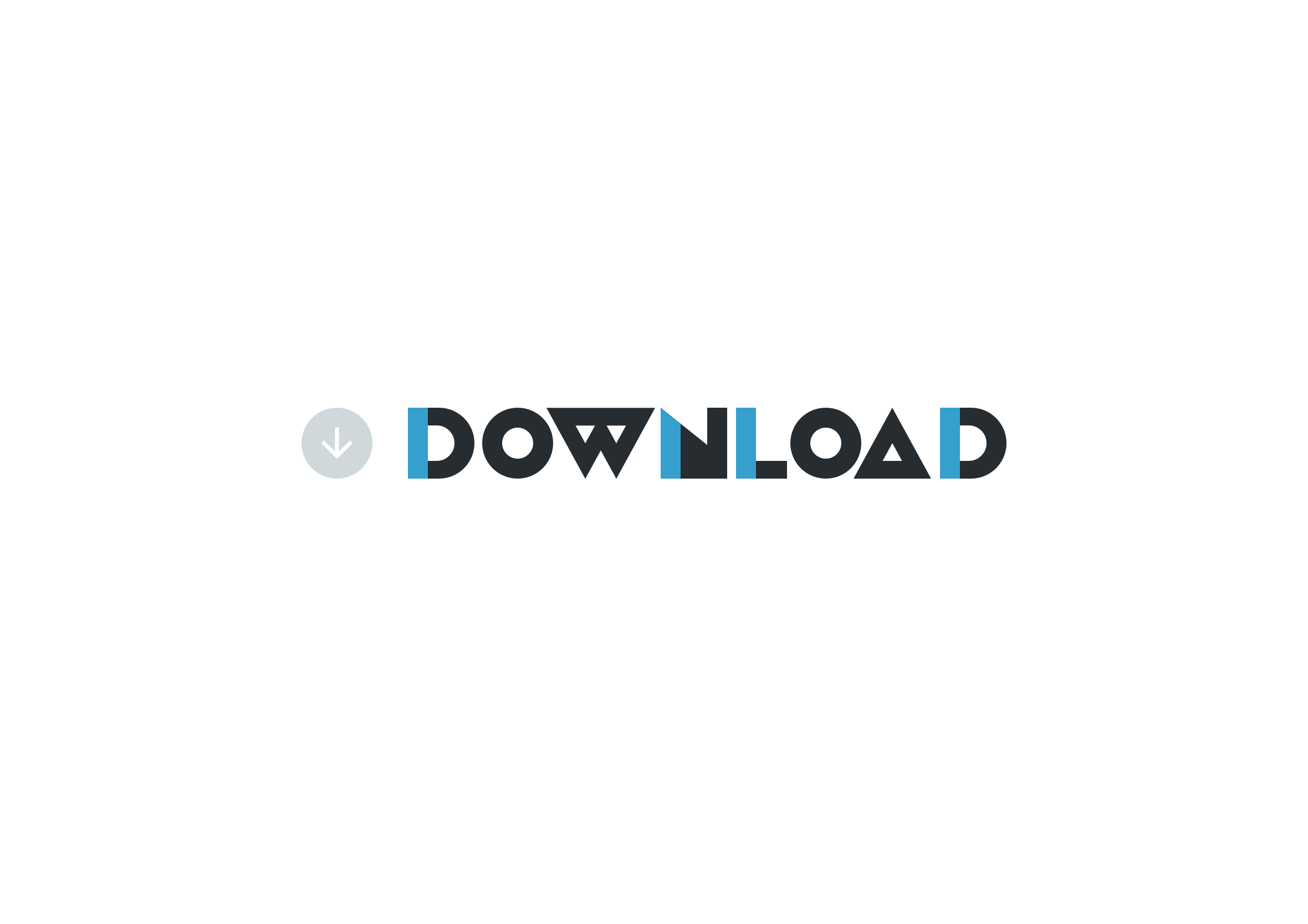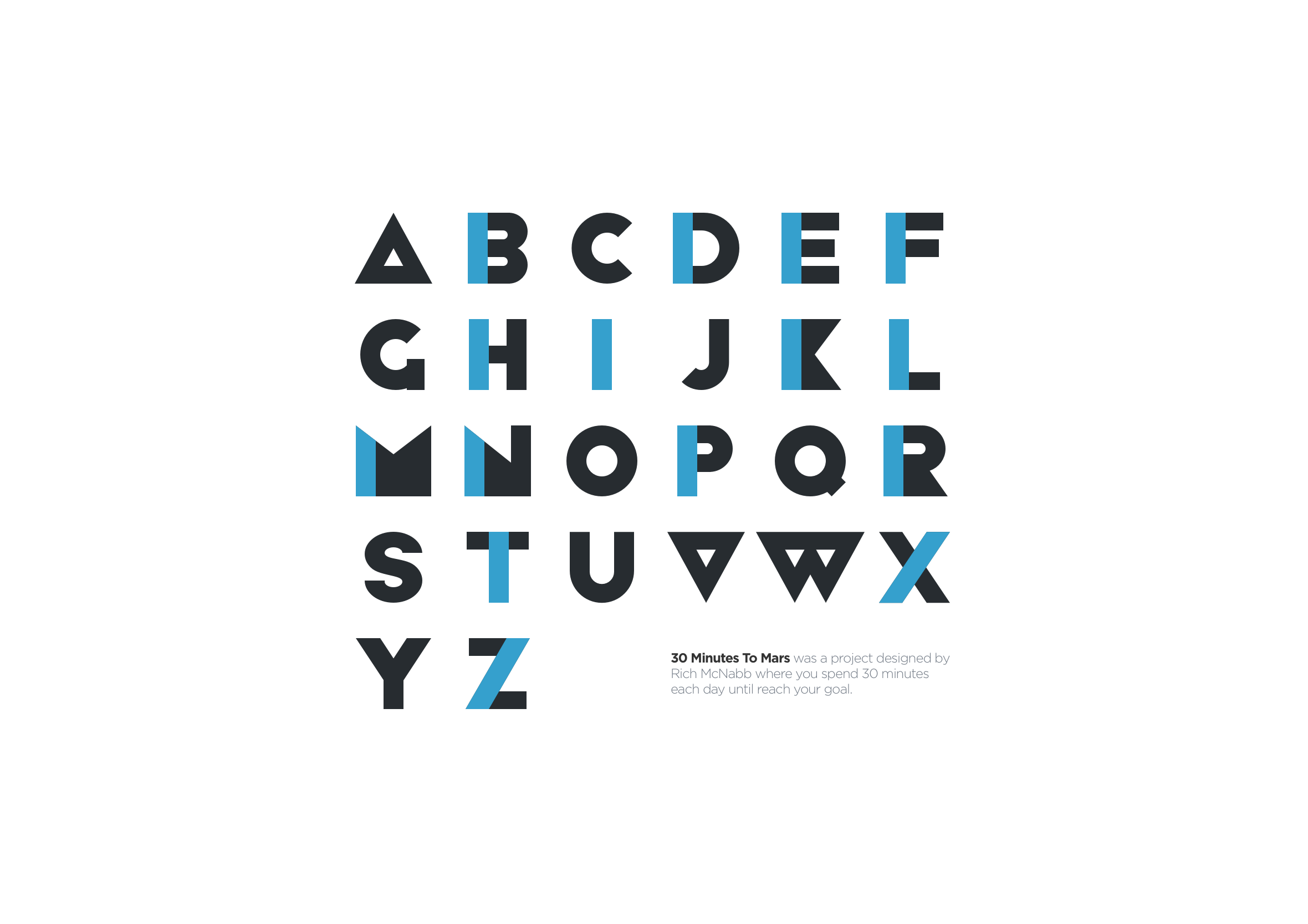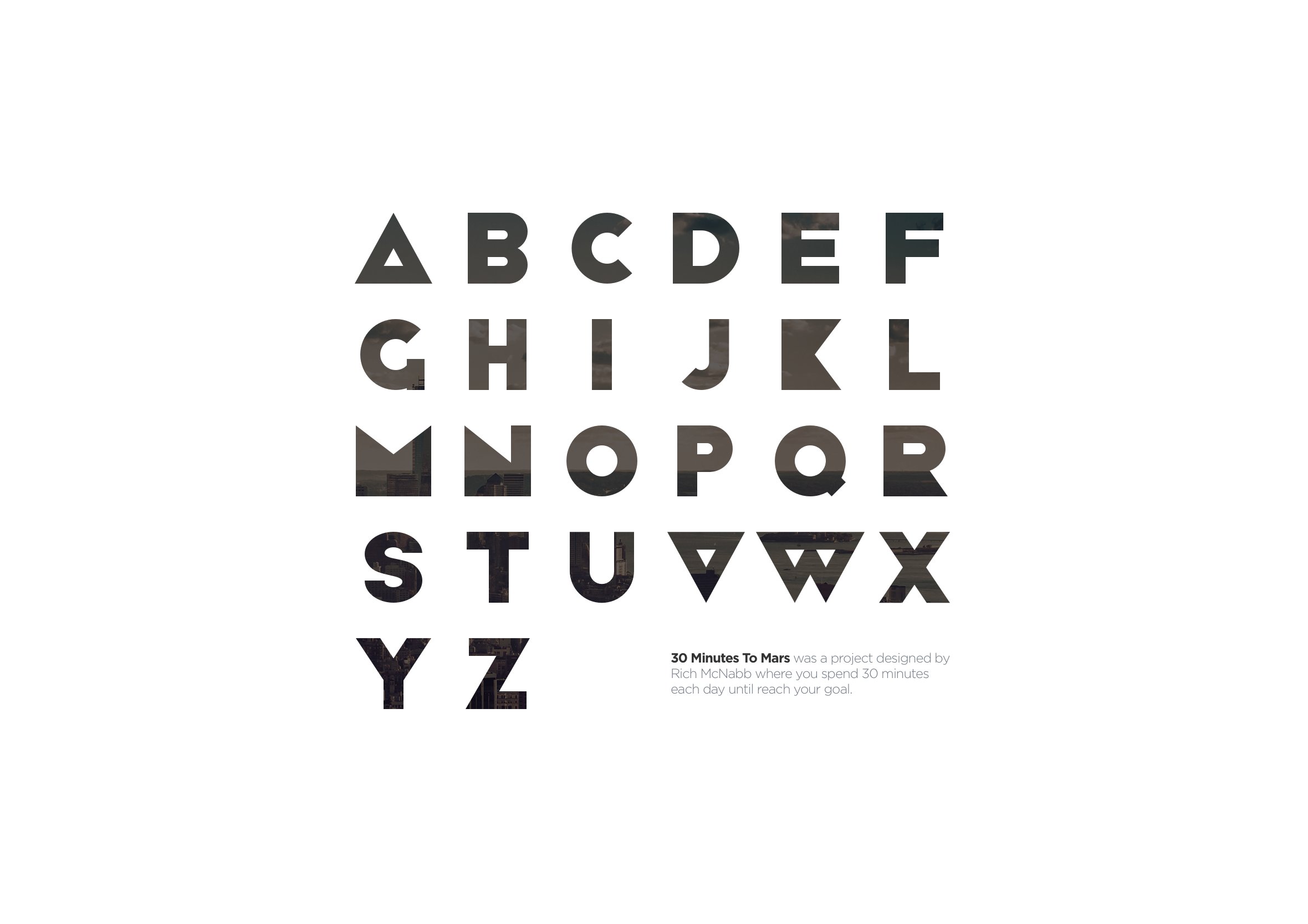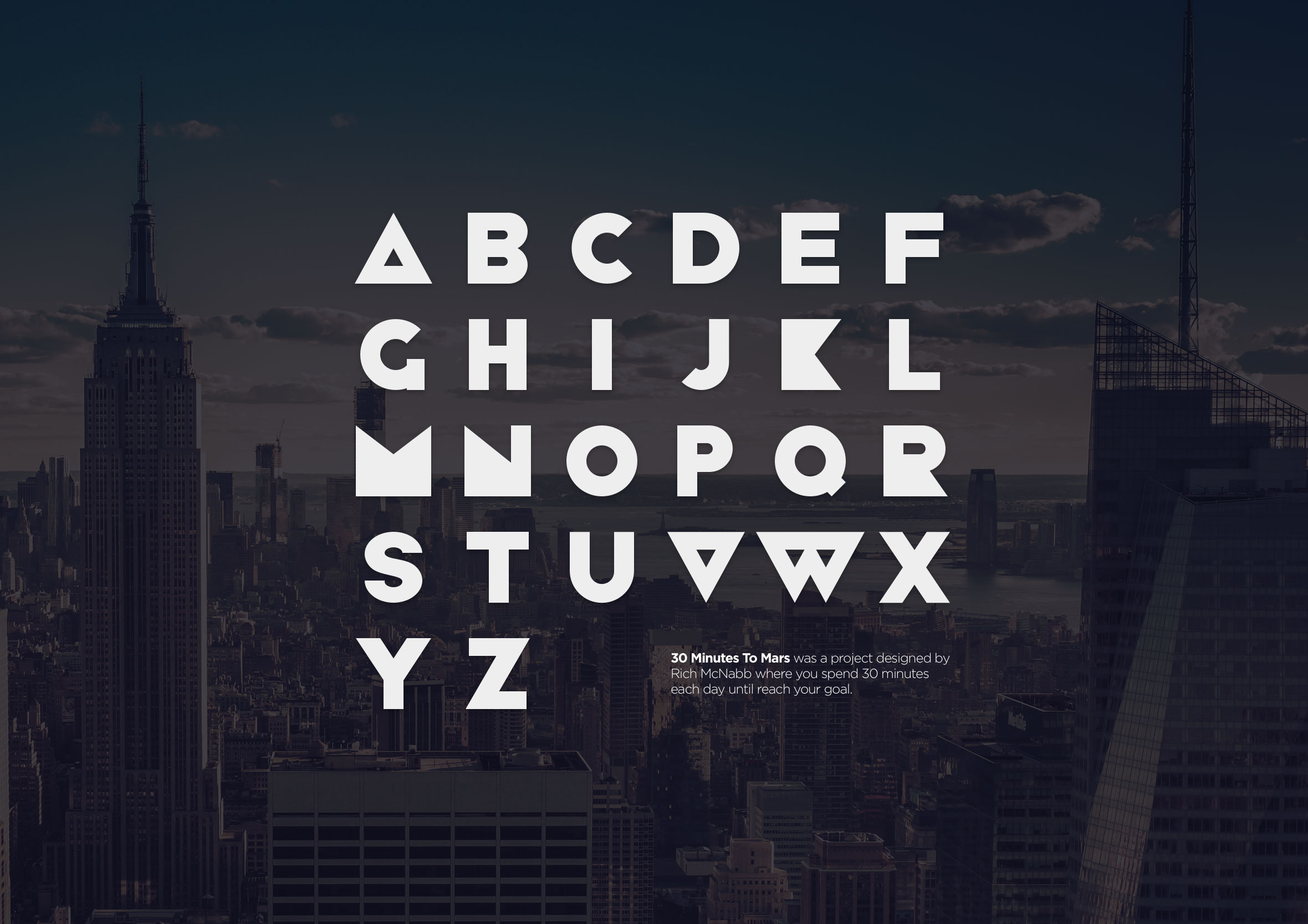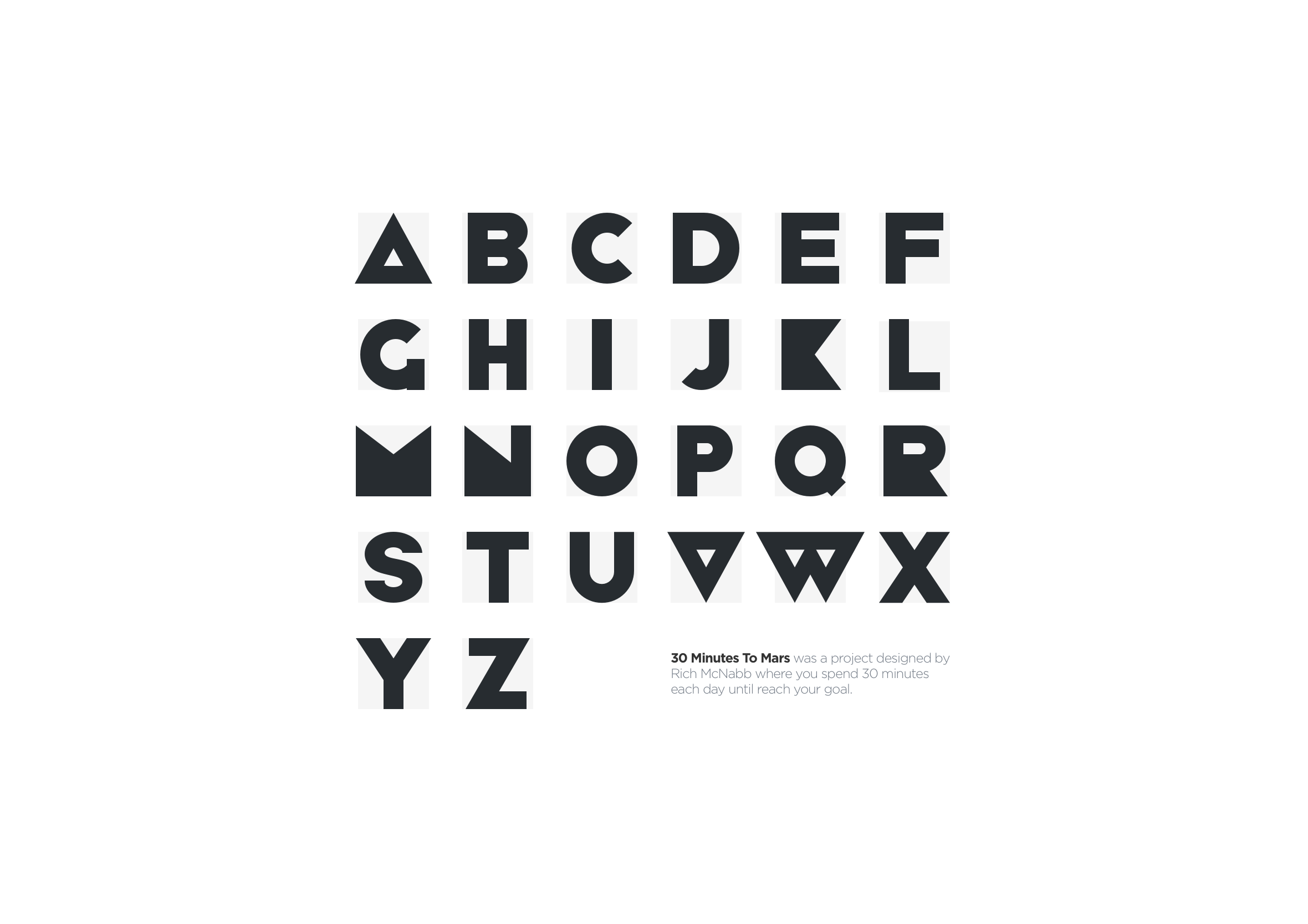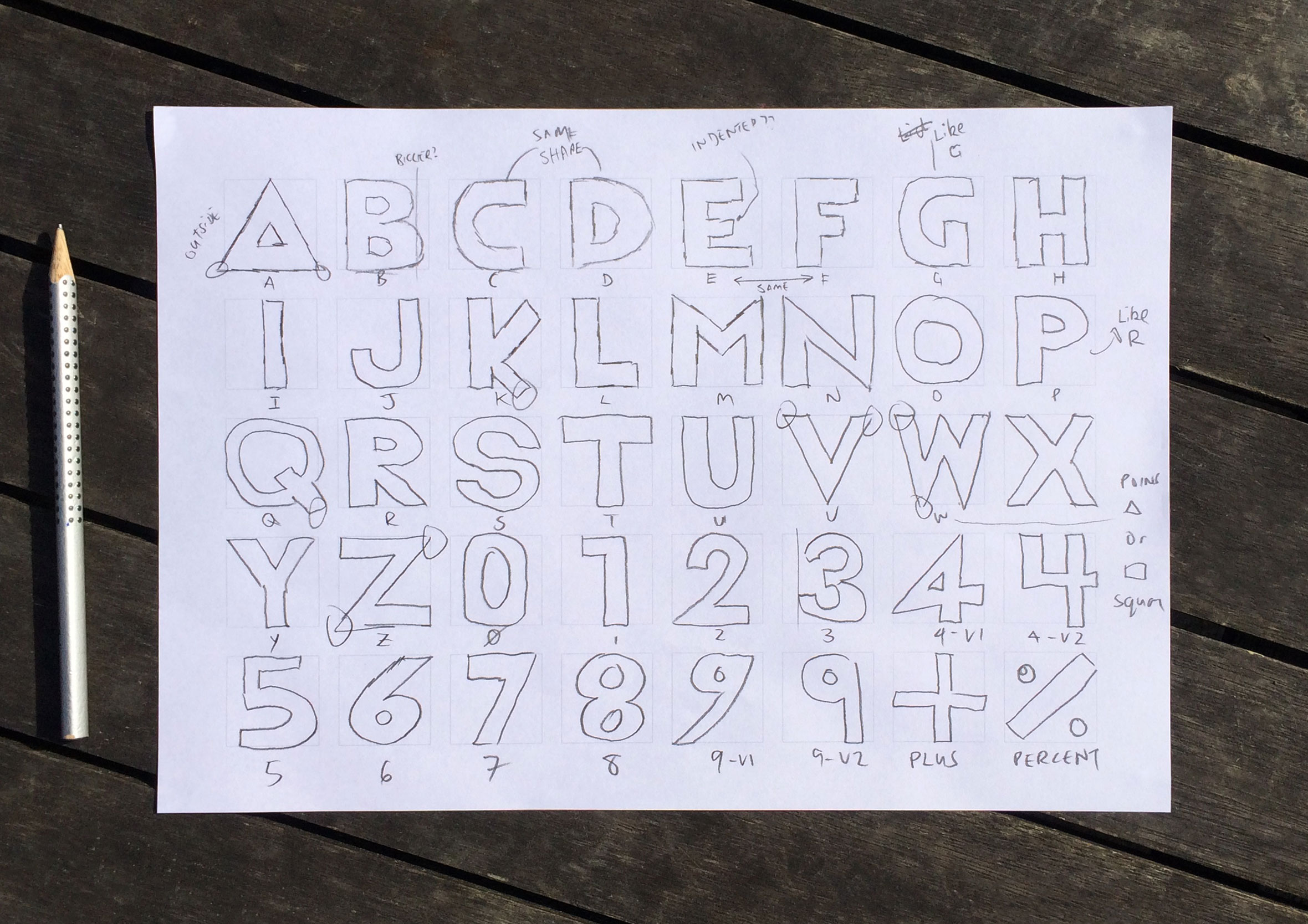
Self-initiated: 30 Minutes to Mars: Free geometric vector font
A free geometric vector font I designed and made available for download. Built using simple modular shapes that can be broken apart and adapted for your own projects.
30 Minutes to Mars - free font download alternative v1
I recently read an article by David Wehmeyer called “One Year of Design” which really resonated with me. The idea is you spend at least 30 minutes every day creating something to eventually reach your goal. I gave this design process the name “30 Minutes to Mars”. This is the same approach I use to create many of my other side projects. It’s a great way to learn new skills, explore different disciplines and ideas.
I wanted to create a simple geometric vector font and make it publicly available as a free download. This served three goals: becoming more proficient with vector software like Sketch and Illustrator, building out my design portfolio, and giving something back to the design community.
30 Minutes to Mars geometric font showing full alphabet in original version
Early sketches and explorations
Here’s a photograph of some early sketched ideas as I worked out a consistent size and style. Throughout this process I’d re-sketch ideas and try different approaches to get the best result.
Early pencil sketches for the 30 Minutes to Mars geometric font
Original version
The original idea was to design typographic building blocks using geometric shapes and piece them together like Lego. By having a bounding box it ensured the letters were consistent and felt like a cohesive font family.
30 Minutes to Mars font original version showing geometric letterforms on a grid
Alternative version: 1
The simple modular shapes make it easy to break apart the font and quickly adapt or modify individual letters for your own design projects. This version only took a few minutes to create and adds a nice touch of visual interest.
30 Minutes to Mars font alternative version 1 with filled geometric shapes
Alternative version: 2
By adjusting the fill and border properties you can quickly and easily transform the font into outline typography. Great for graphic design and promotional websites.
30 Minutes to Mars font alternative version 2 as outline typography
Alternative version: 3
Individual elements can be removed to simplify the font further and give designers more flexibility. In this version I masked an image behind the letterforms to reveal the background — a detail you only really notice on closer inspection.
30 Minutes to Mars font alternative version 3 with image masked behind letterforms
30 Minutes to Mars font alternative version 4 showing colour variation